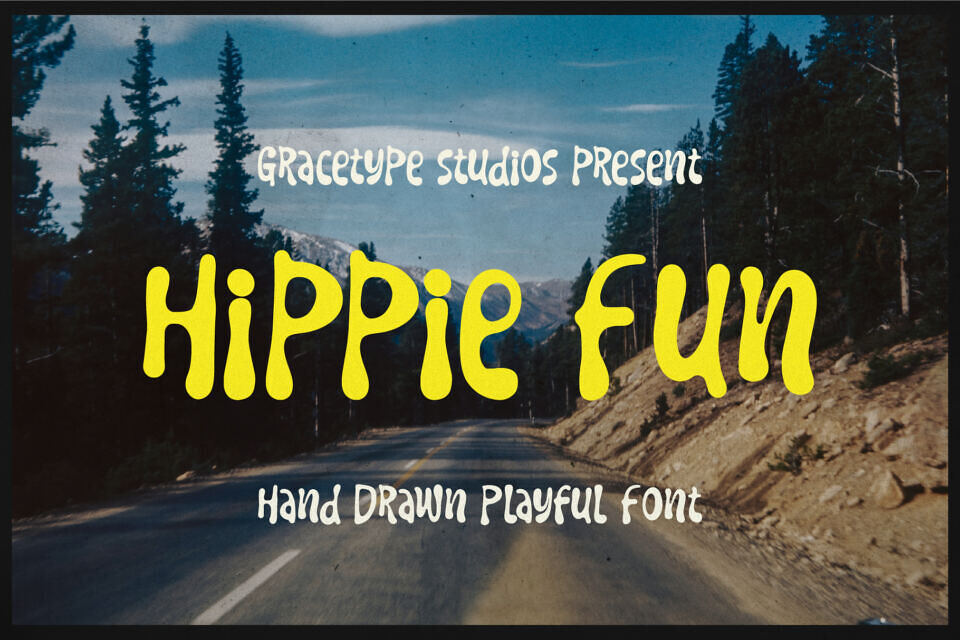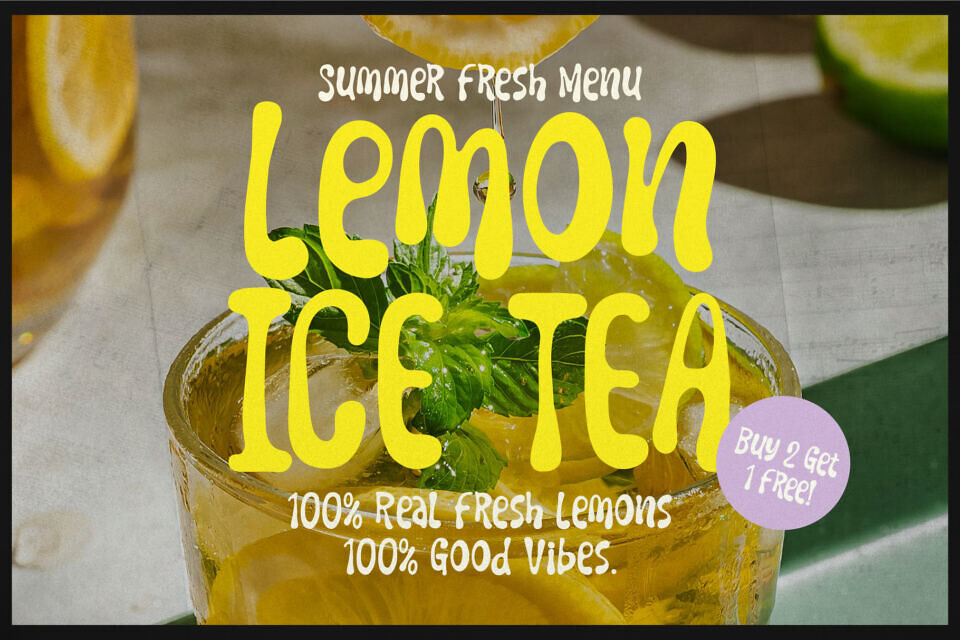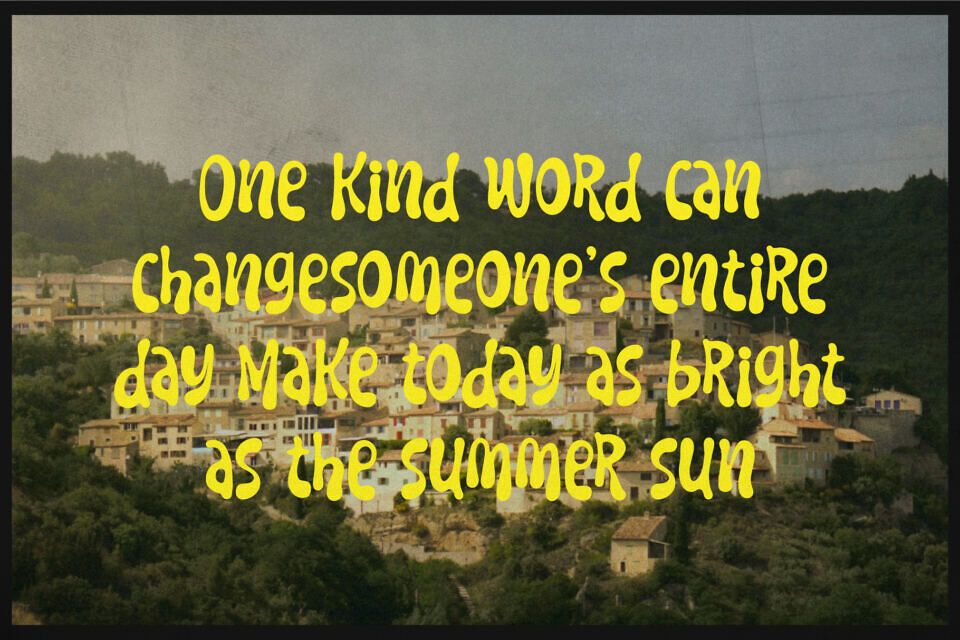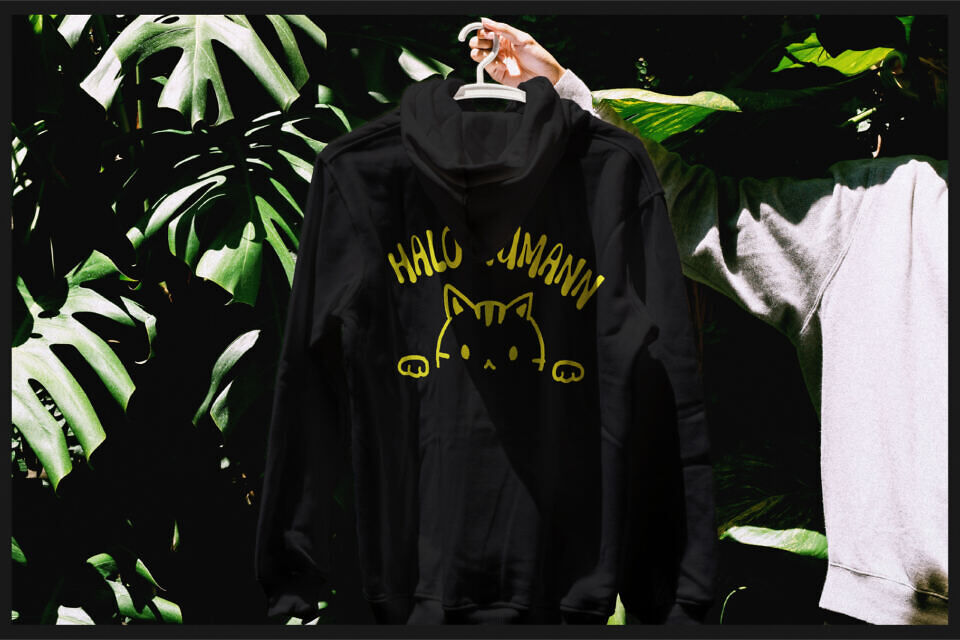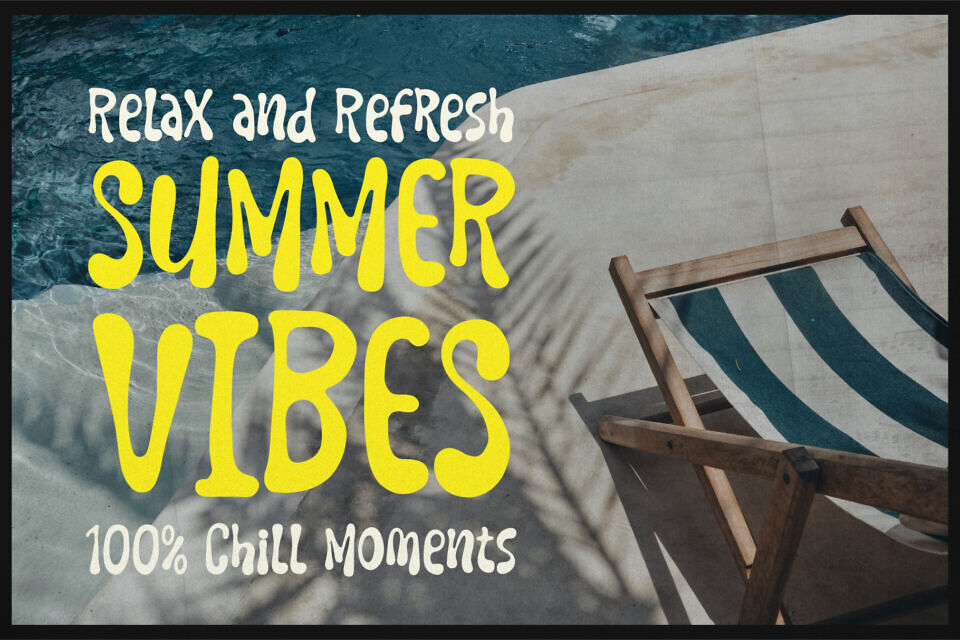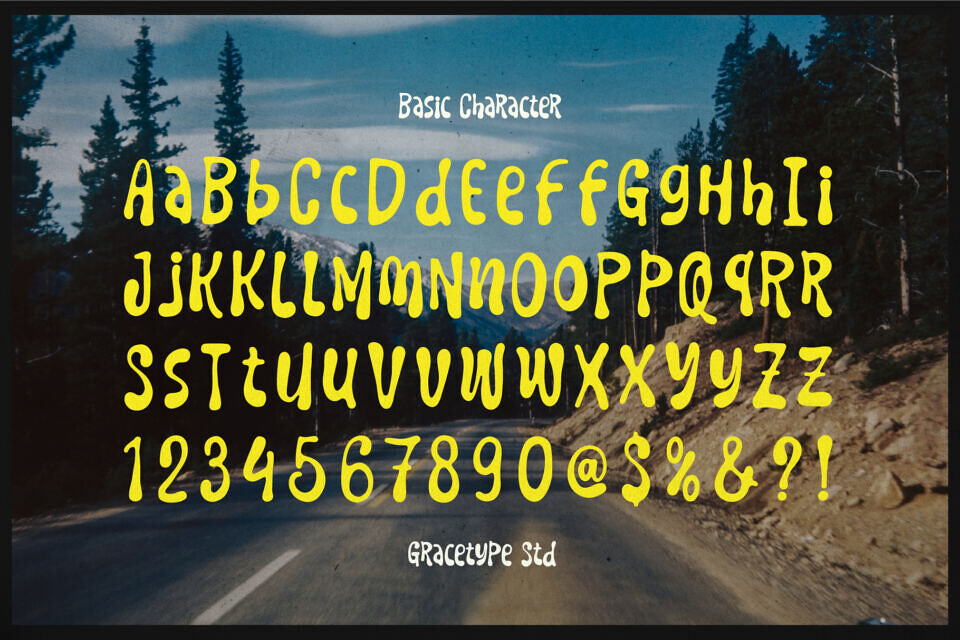
Take a sun-drenched, carefree road trip back to the golden era of counterculture with Hippie Fun, a masterfully sculpted display font.
Hippie Fun is the premier choice for summer festival branding, organic craft snack packaging, indie music publication mastheads, casual children’s apparel lines, retro pop-culture merchandise, and high-visibility social media headers looking for an unmissable, vintage happy signature.